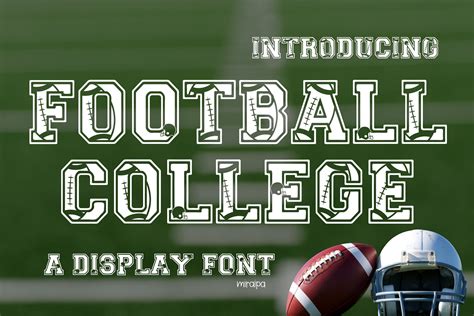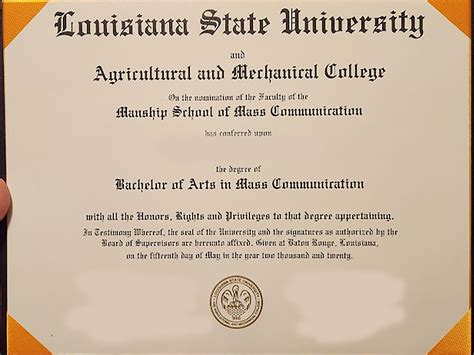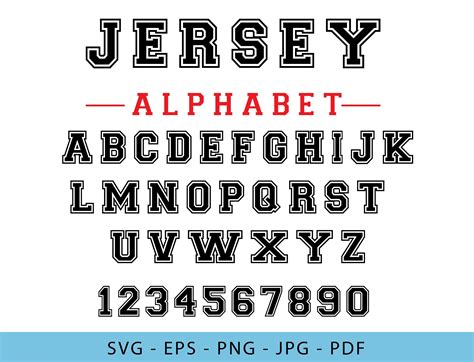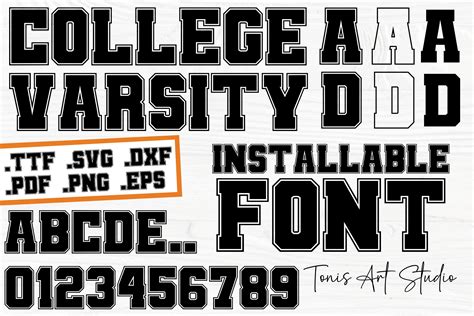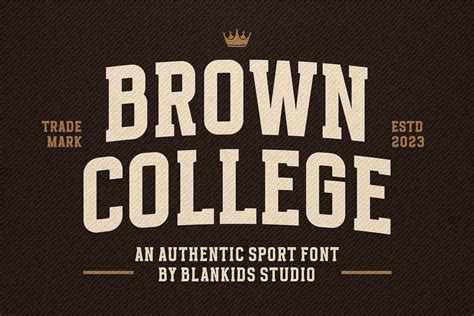
Selecting the paragon font for university task, official institutional branding, or academic inquiry papers is a critical conclusion that influences how information is perceived and process by reader. Typography function as the silent voice of your written communicating, prescribe the level of professionalism, clarity, and potency conveyed in your papers. Whether you are craft a thesis, germinate a departmental site, or designing campus promotional textile, the typeface you opt set the stage for donnish success. Translate the balance between legibility and stylistic intent is all-important, as the improper font can deflect from even the most brilliant scholarly arguments. In this guide, we research the nuances of select the good typefaces for several educational contexts, ascertain your work stands out for all the right ground.
The Impact of Typography in Higher Education
In a university scene, documents are often dense with complex info, datum, and quotation. A typeface that surpass in a marketing folder might fail totally when applied to a fifty-page research dissertation. Legibility is the base of donnish design; it ascertain that the audience can absorb information without eye strain or mental fatigue. By take the rightfield font for university assignments, you are basically reducing the cognitive cargo on your professors and peers, allowing them to focus entirely on the meaning of your research.
Serif vs. Sans-Serif: The Academic Debate
The selection ofttimes boils down to the classic contention between serif and sans-serif styles. Traditionally, seriph fonts - characterized by the modest decorative cva at the terminal of letters - have been the touchstone for mark medium. They are oftentimes comprehend as authoritative, traditional, and true. Conversely, sans-serif baptistry are clean, modernistic, and extremely versatile, create them a popular font for university digital program and mobile-responsive site.
- Serif Fonts: Ideal for long-form mark document like journals, volume, and theses because they provide a ocular anchorman for the eye.
- Sans-Serif Fonts: Preferred for presentations, user interfaces, and little instructional cloth where flying readability is the primary goal.
Recommended Typefaces for Different Academic Needs
Different tasks require different visual treatments. When fix a formal account, you might lean toward classical, time-tested pick, while a design project or poster might profit from something with a bit more personality. Below is a crack-up of how to match the fount to the task at mitt.
| Labor | Recommended Style | Principal Benefit |
|---|---|---|
| Dissertations/Theses | Classic Serif | Formal potency and eminent readability |
| Digital Course Materials | Geometric Sans-Serif | Eminent legibility on backlit screens |
| Campus Infographics | Sheer Sans-Serif | Potent visual hierarchy and impact |
| Lab Account | Monospace/Serif | Distinct character separation for datum |
💡 Note: Always see your chosen font include a total reach of weights, including italic and sheer variants, to maintain proper emphasis throughout long papers.
Best Practices for Academic Document Design
Choose the perfect case is but the inaugural footstep. Proper typesetting is what transforms a papers from amateur to professional. Yet the most prestigious typeface will look unappealing if the layout is strangle or disorganize.
Establishing Visual Hierarchy
Use your font for university projection to make a clear construction. A strong hierarchy guides the reader through your document, severalise between headings, sub-headings, body text, and footnotes. A common proficiency is to use a bolder or larger edition of your body fount for gallery to maintain a reproducible brand individuality.
Spacing and Alignment
Line acme (leading) and letter spacing (kern) play a massive function in readability. A line spacing of 1.5 is standard for most donnish entry, as it supply plenteous white space for comments and correction. Ne'er sacrifice legibility for the saki of esthetic; control the text does not feel "herd" on the page.
When you guide the time to intentionally choose a font for university applications, you demonstrate a grade of attention to detail that is highly valued in scholarly work. Consistency across your document creates a cohesive academic front, make your enquiry easygoing to read and more authoritative in quality. Remember to try your text in both print and digital formatting before finalizing your compliance, as the reckon medium can significantly vary how a specific font appear to the subscriber. Ultimately, the good choice is one that remains unnoticeable, allowing the quality of your research and the lucidity of your ideas to guide middle stage in all your written employment.